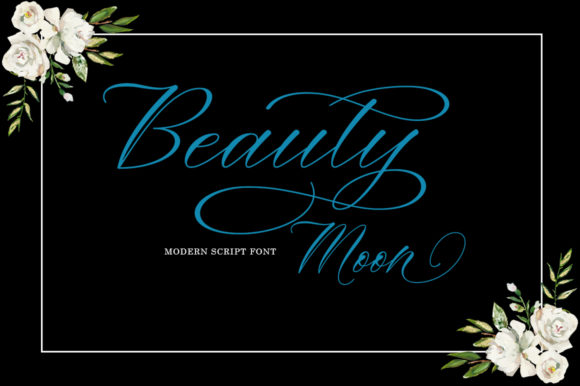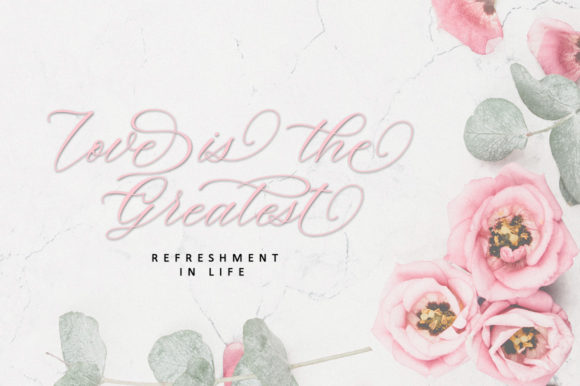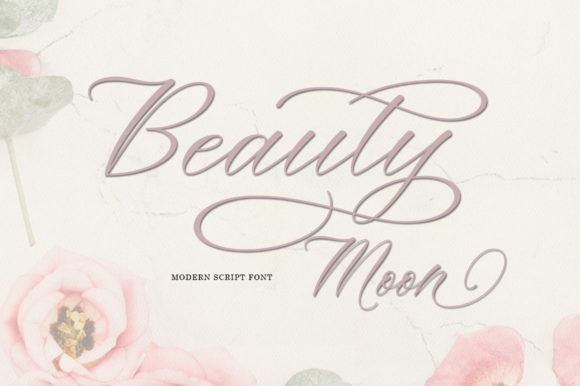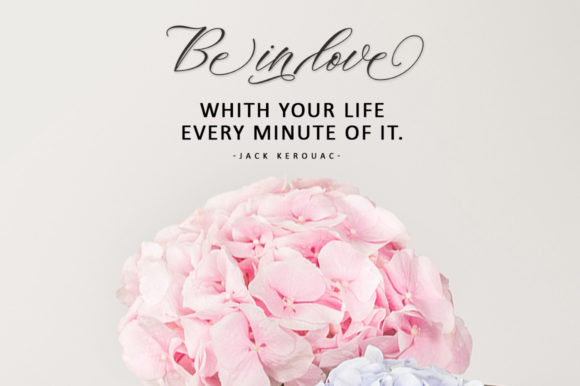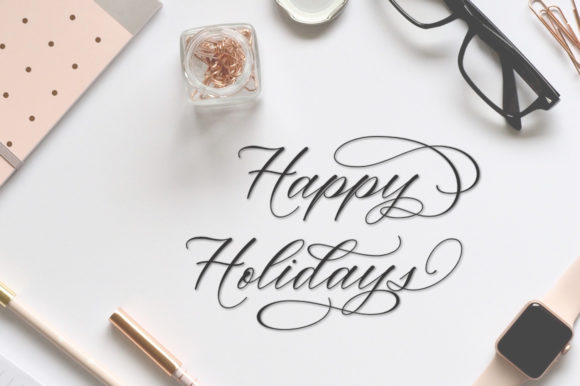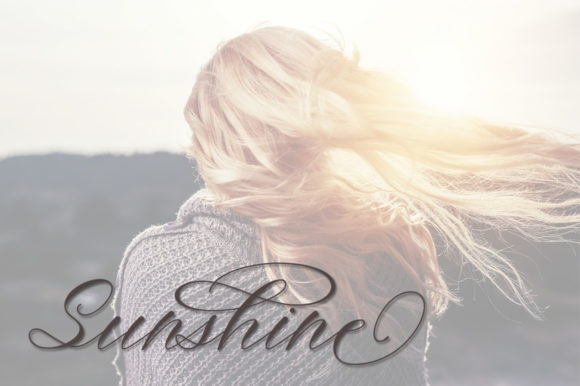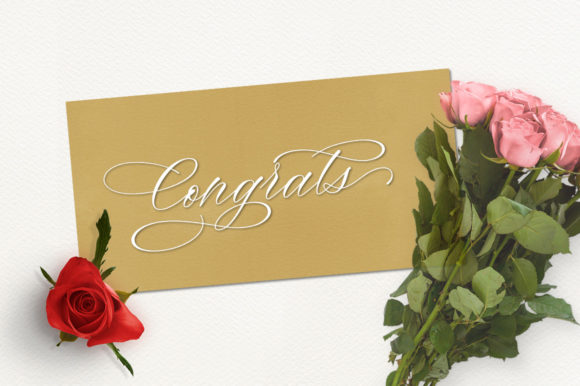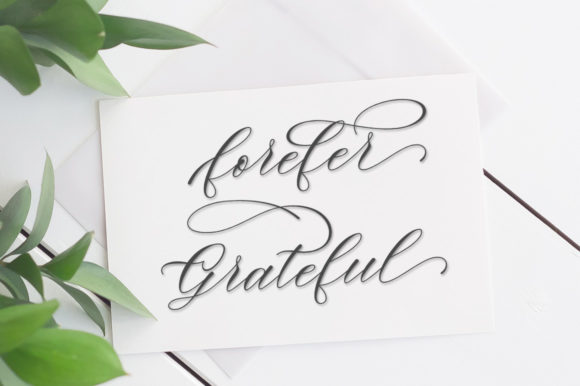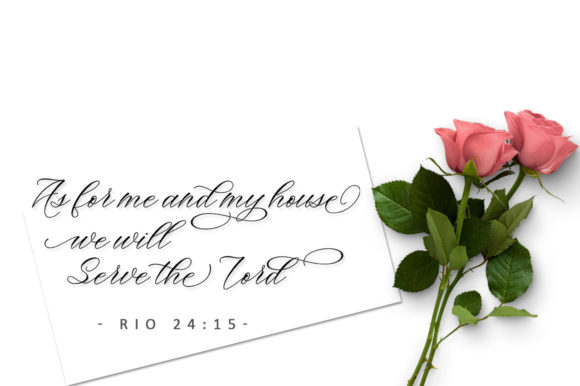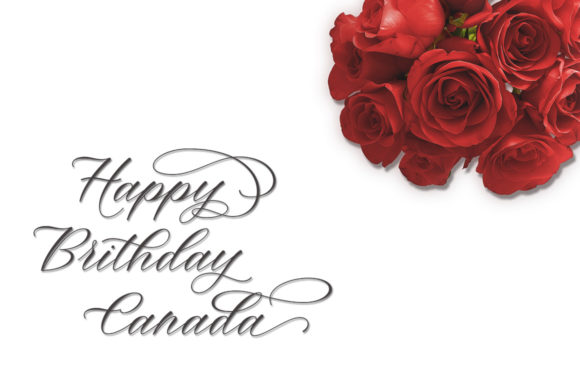
Beauty Moon Script Font
About Beauty Moon Script Font
The Beauty Moon is a modern script font. It has a regular baseline and will give your designs a trendy and feminine style.
It’s perfect for wedding invitations, thank you cards, quotes, greeting cards, logos, business cards and more.